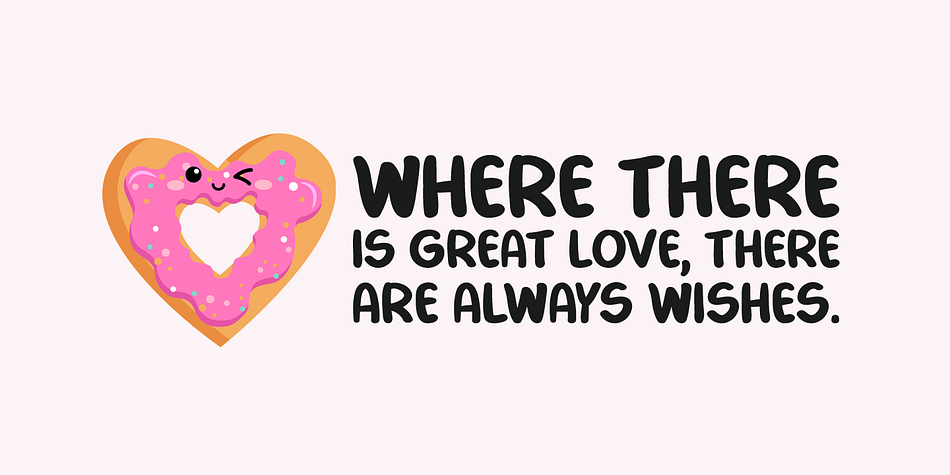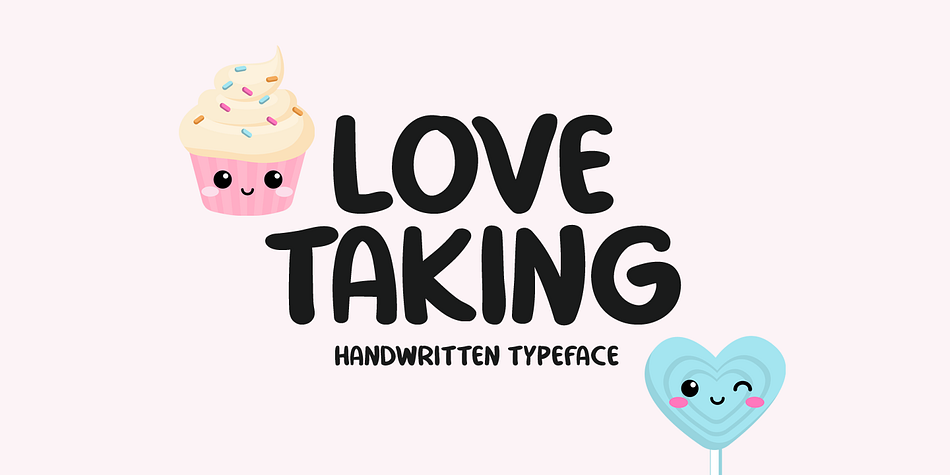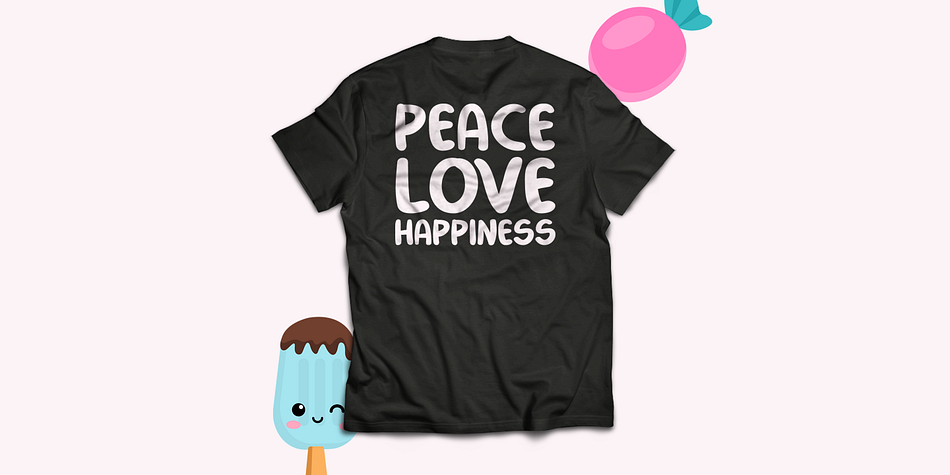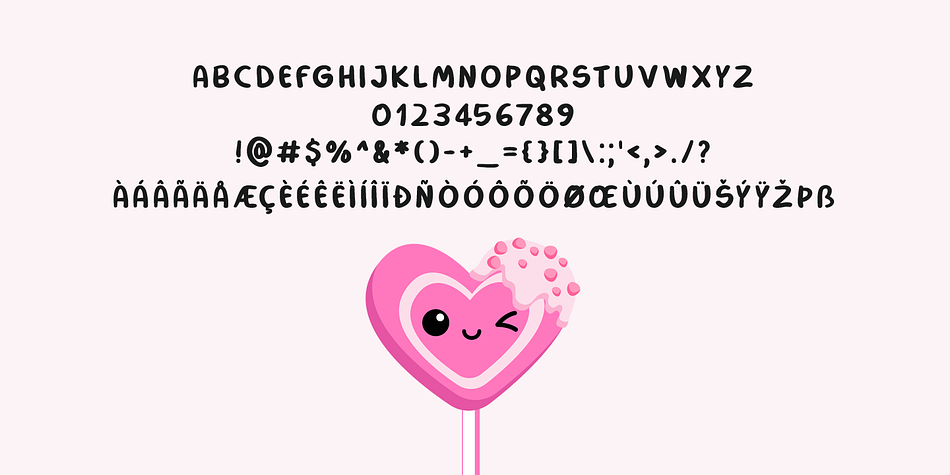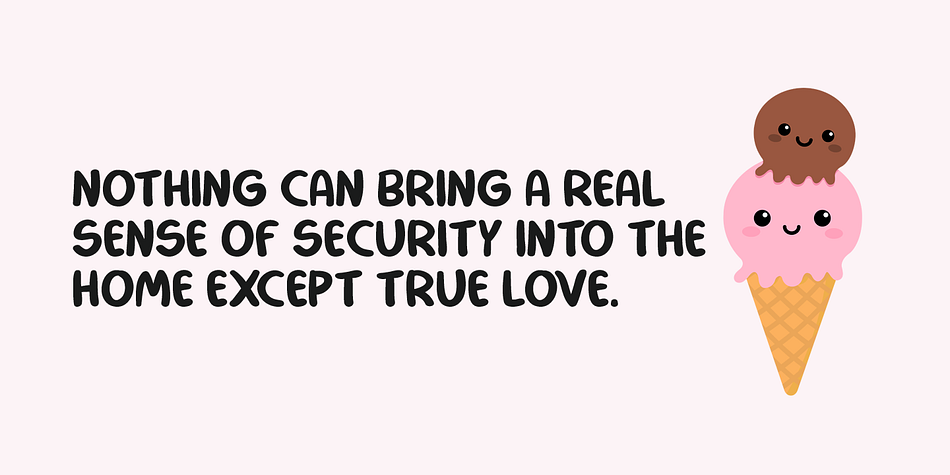
Designed by Md. Shohail Bhuiyan, Love Taking is a hand display font published by Seemly Fonts.
Love Taking is a bold and fun handwritten font. Fall in love with its completely different and timeless style and use it to create spectacular designs!